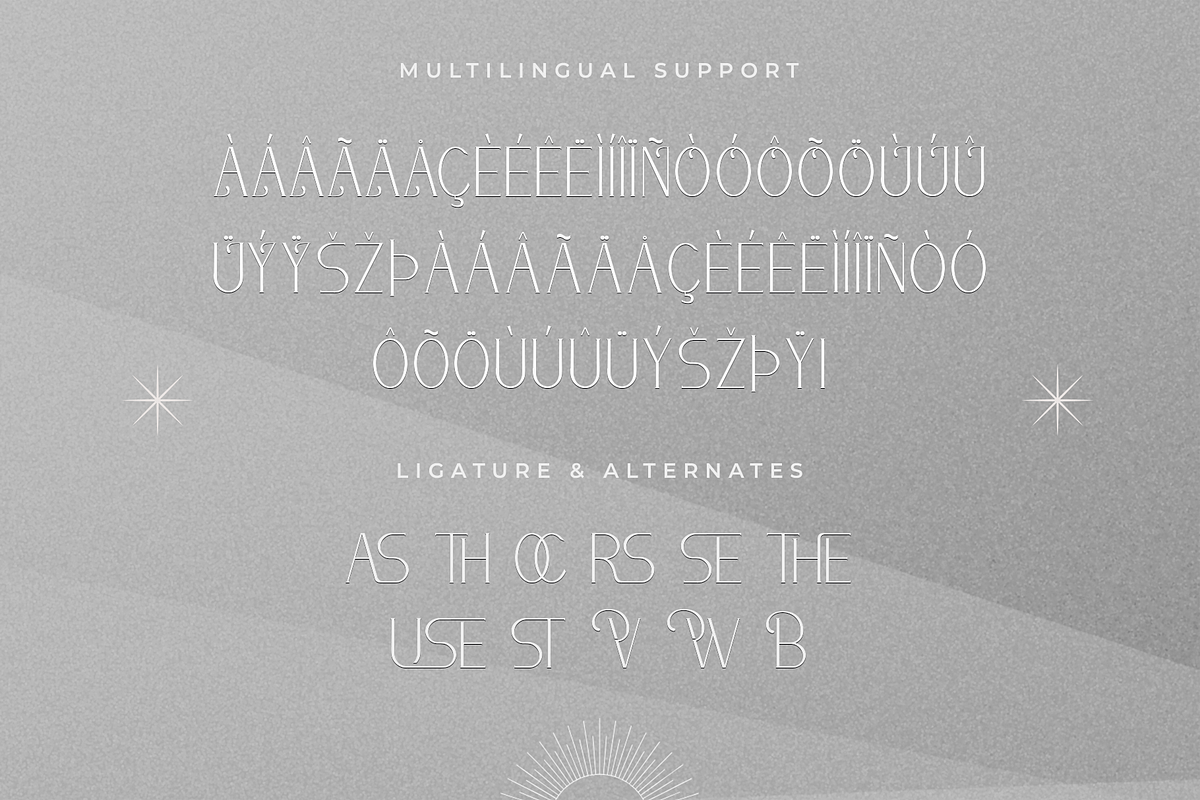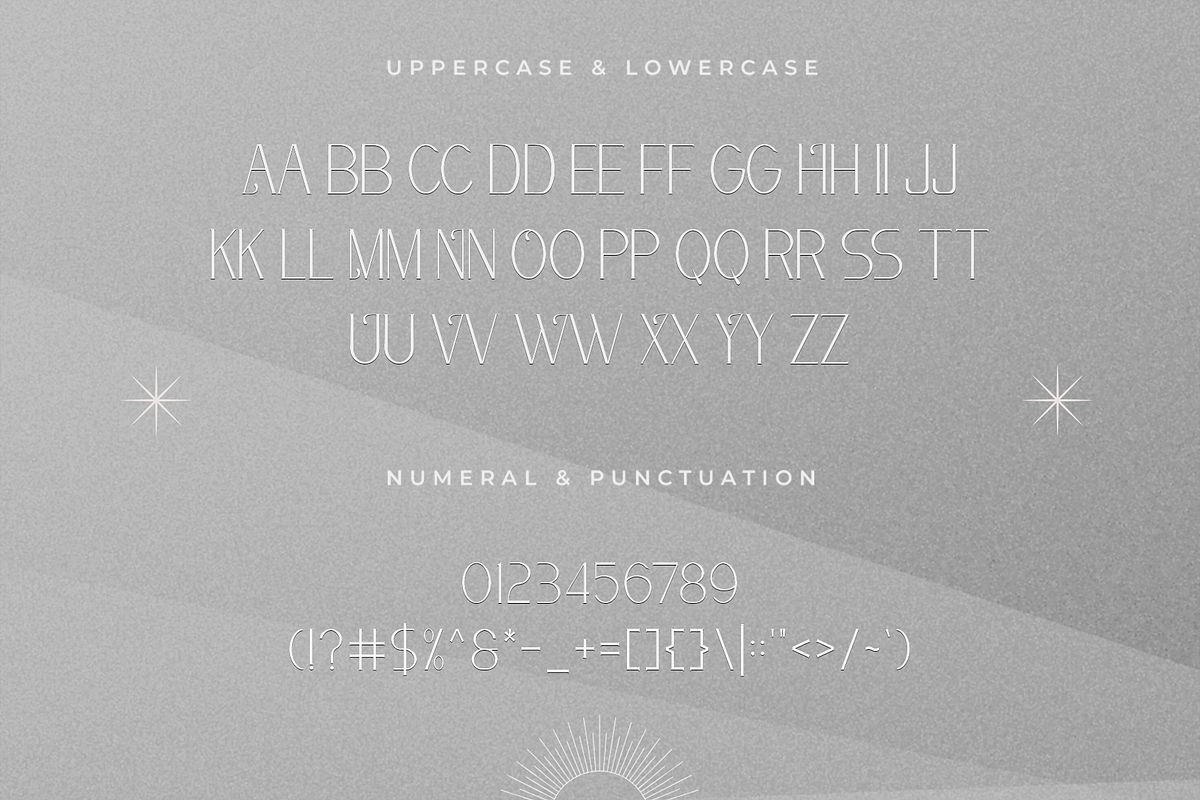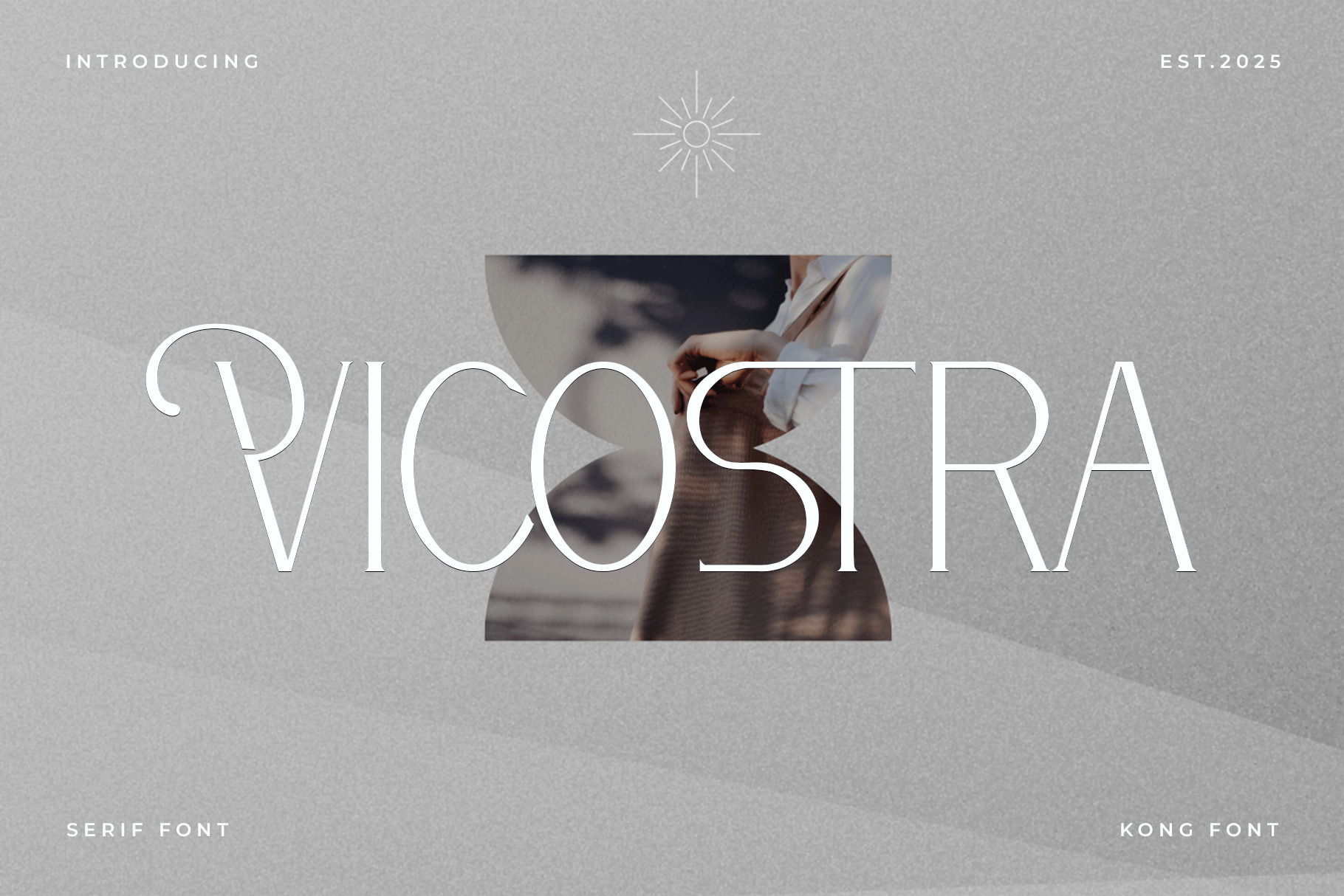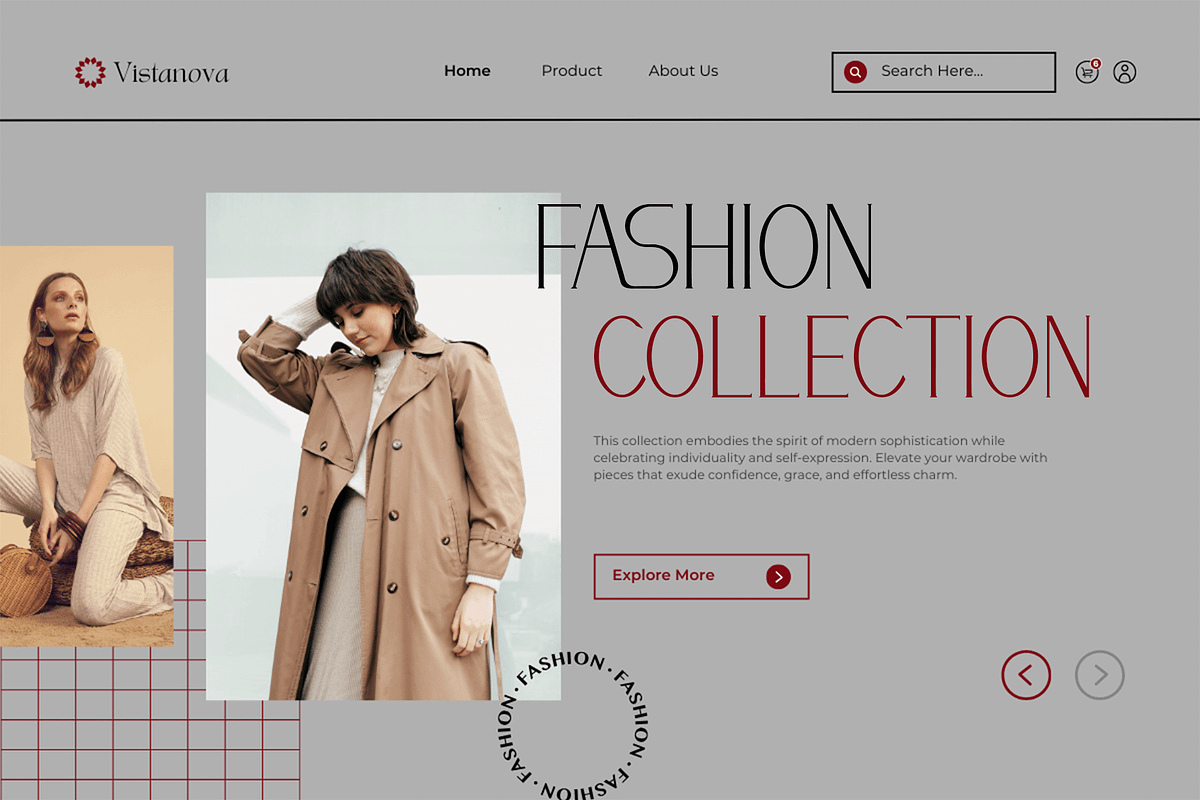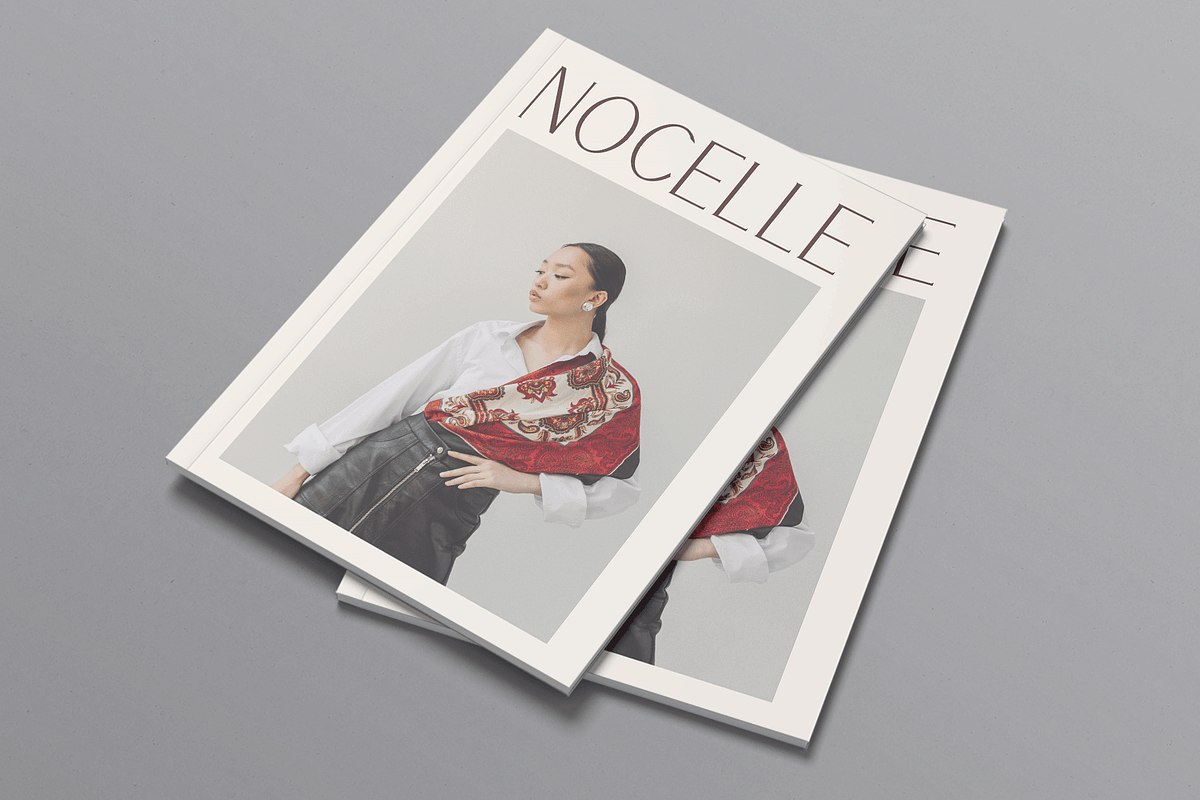
Vicostra – A Timeless Serif Font
Vicostra is a sophisticated serif font that blends timeless elegance with a contemporary aesthetic. Designed with clean, sharp serifs and balanced proportions, this typeface is perfect for projects that require a touch of class and professionalism.
Ideal for branding, editorial layouts, book covers, luxury packaging, and corporate designs, Vicostra offers excellent readability while maintaining a strong and stylish presence. With its versatile character set, including uppercase and lowercase letters, numerals, punctuation, and multilingual support, this font adapts effortlessly to both digital and print applications.
Whether you’re crafting an elegant brand identity, a sleek website, or an upscale advertising campaign, Vicostra is the perfect serif typeface to elevate your design.